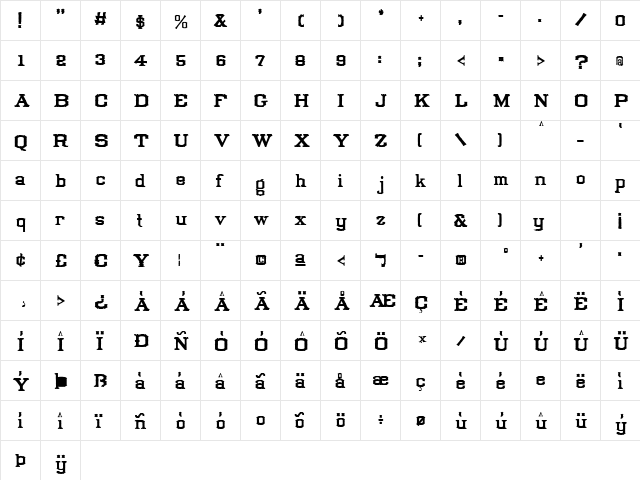
Tuscan Condensed Regular
Design Context for Tuscan Condensed Typeface
Tuscan Condensed takes a measured approach to typography — its balanced proportions and neutral character make it a reliable workhorse for both digital and print work. Its narrow stance lets it pack a punch even in space-constrained designs.